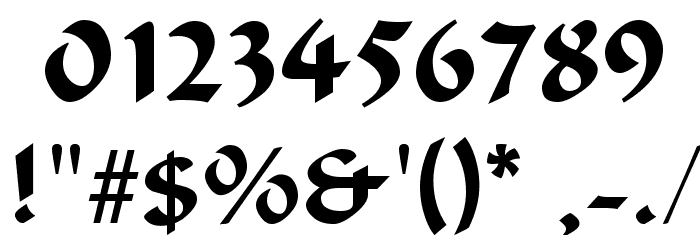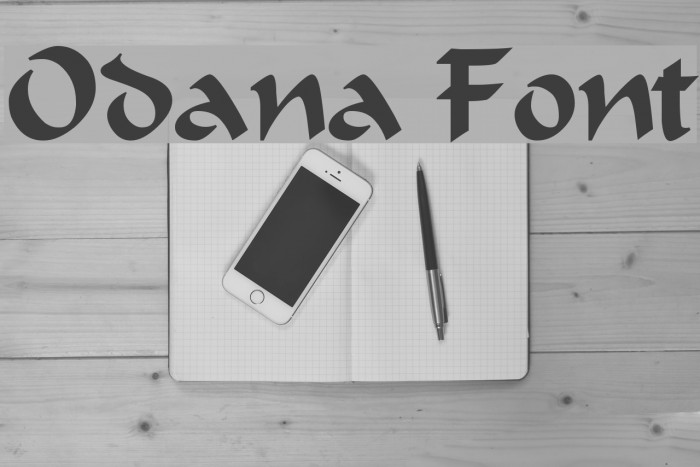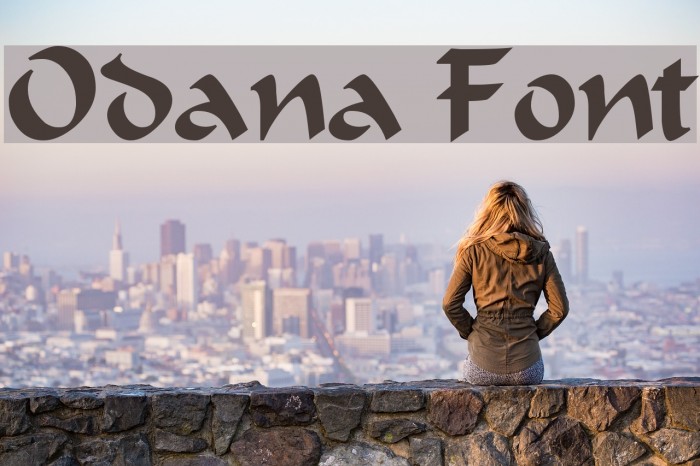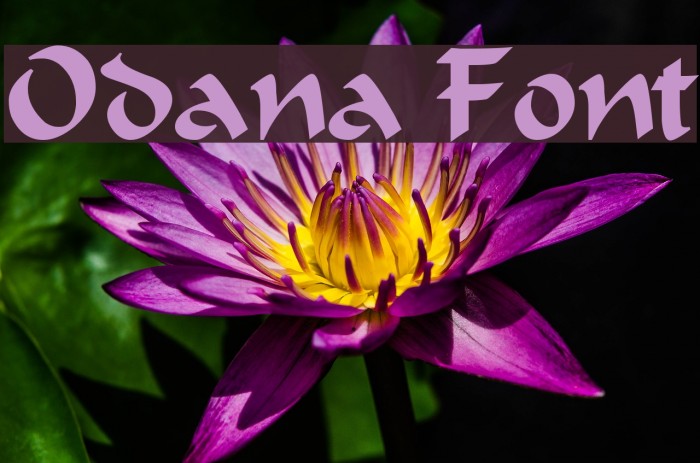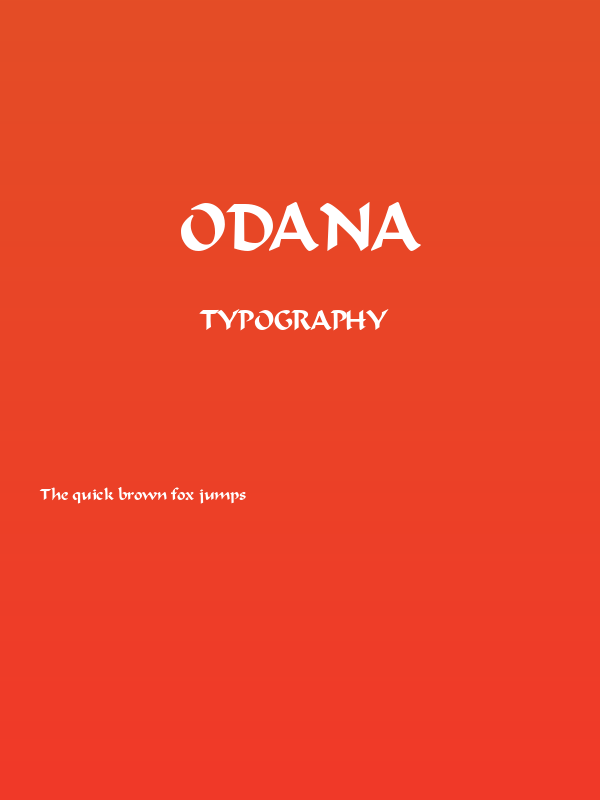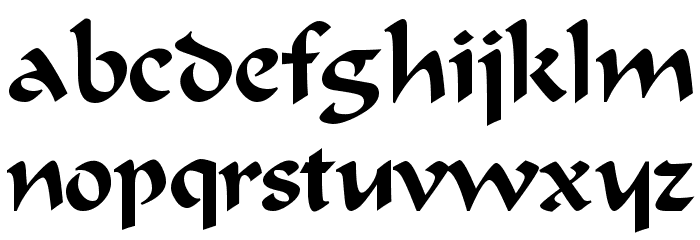
Odana Font
Odana Description
This font features a bold and dramatic style, reminiscent of traditional calligraphy with a modern twist. The characters are sharply defined with angular strokes, giving it a strong and authoritative presence. The uppercase letters are particularly striking, with a gothic influence that adds a sense of mystery and elegance. The lowercase letters maintain the same boldness, ensuring consistency throughout the typeface. Numbers and special characters are equally well-crafted, making this font versatile for various uses. The overall design is both artistic and functional, suitable for projects that require a touch of sophistication and impact.
| Proposed Projects | Ideal for branding, posters, book covers, and any design needing a bold, artistic touch. |